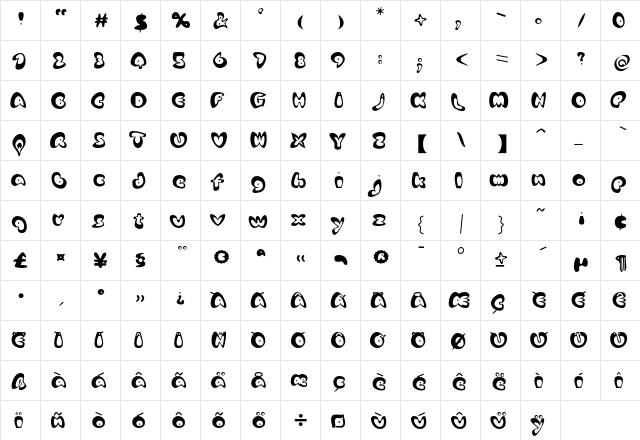
AfroditeKATEF Funky
Design Context for AfroditeKATEF Typeface
AfroditeKATEF has an approachable, lighthearted character — its loose, expressive forms are well-suited to children's content, casual branding, and fun-first design.
Well-suited to food and beverage brands with personality, educational materials, and fun-forward identities.
Font Pairing: Pairs well with a rounded or humanist sans for body copy, maintaining the friendly tone without relying on AfroditeKATEF to carry extended reading.
Pro Tip: Use AfroditeKATEF at larger display sizes where its expressive character can land. Pair with a clean, simple sans for body copy to maintain readability.